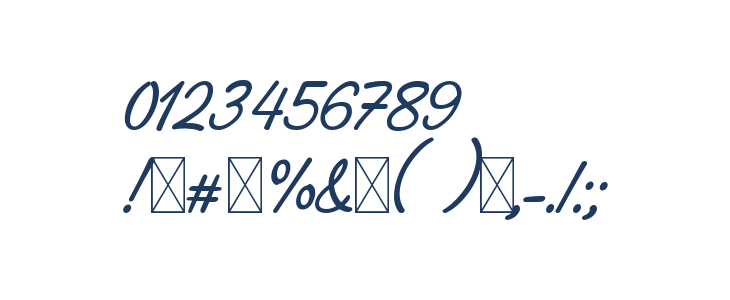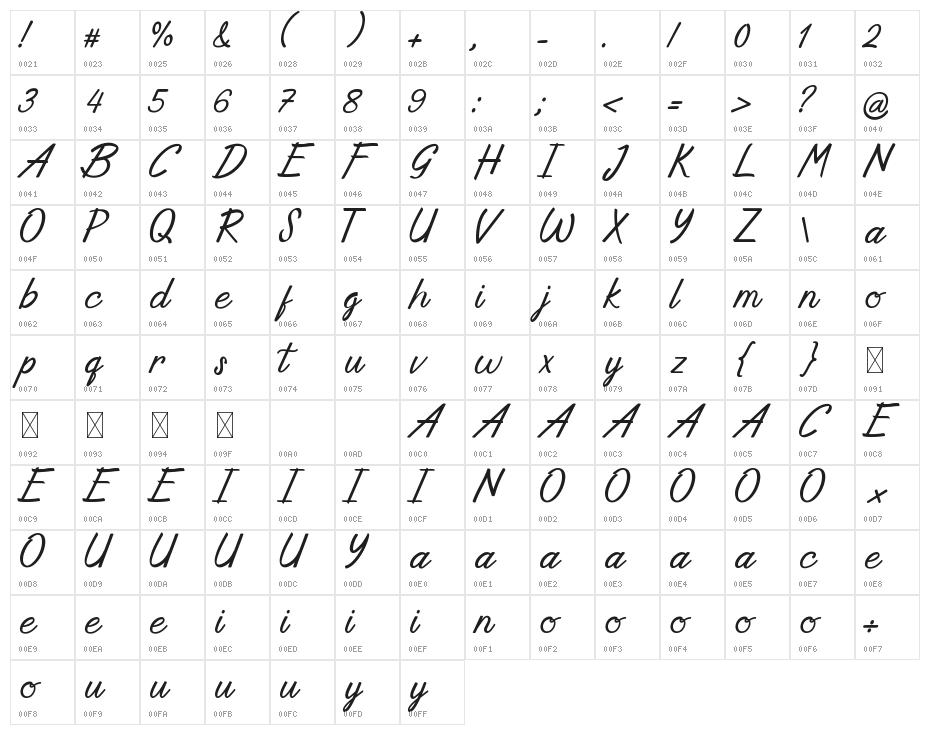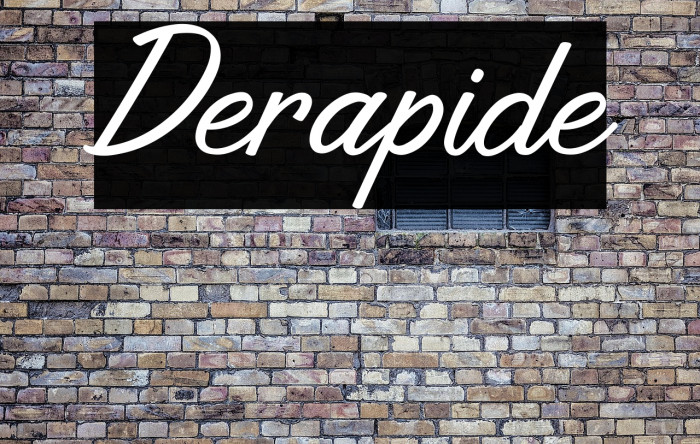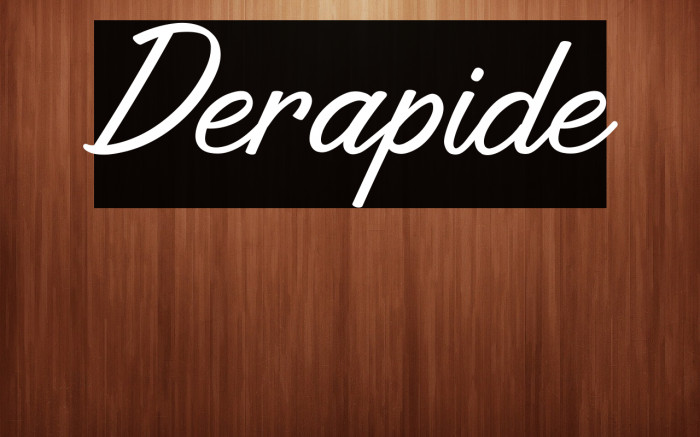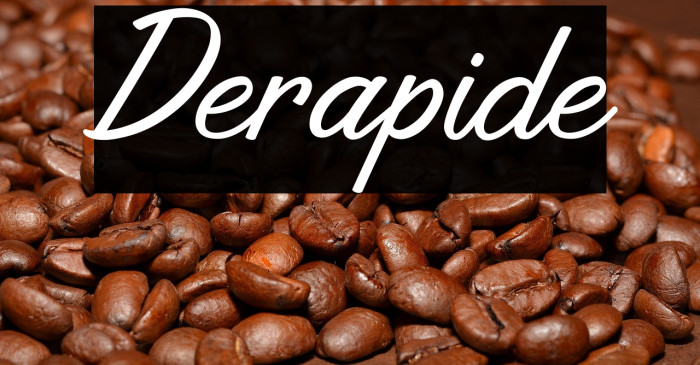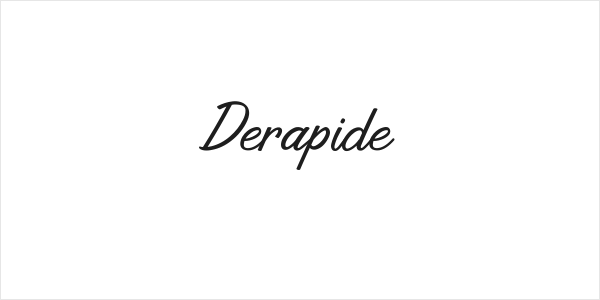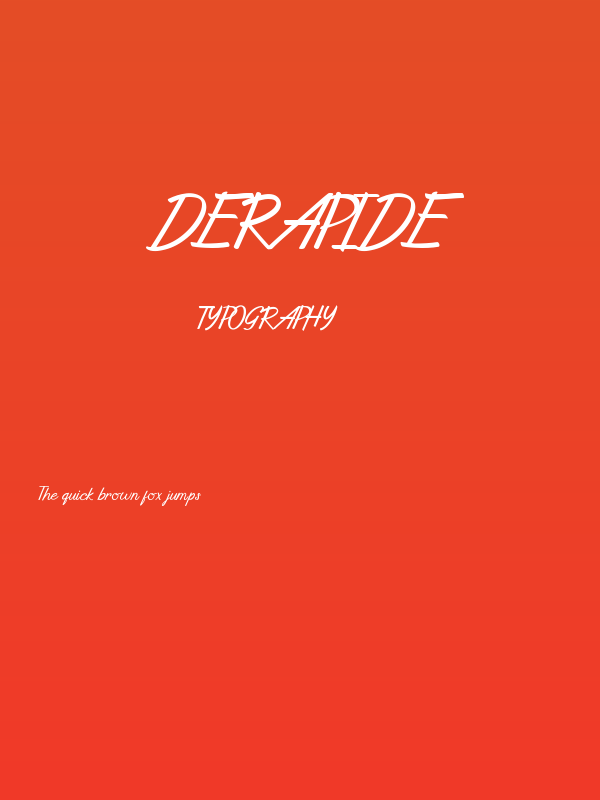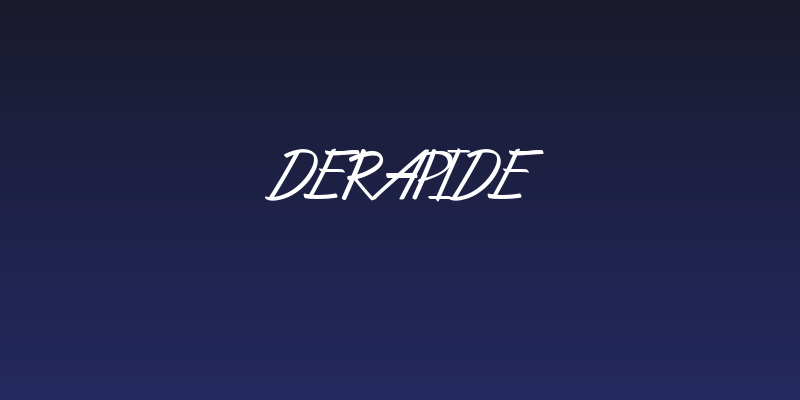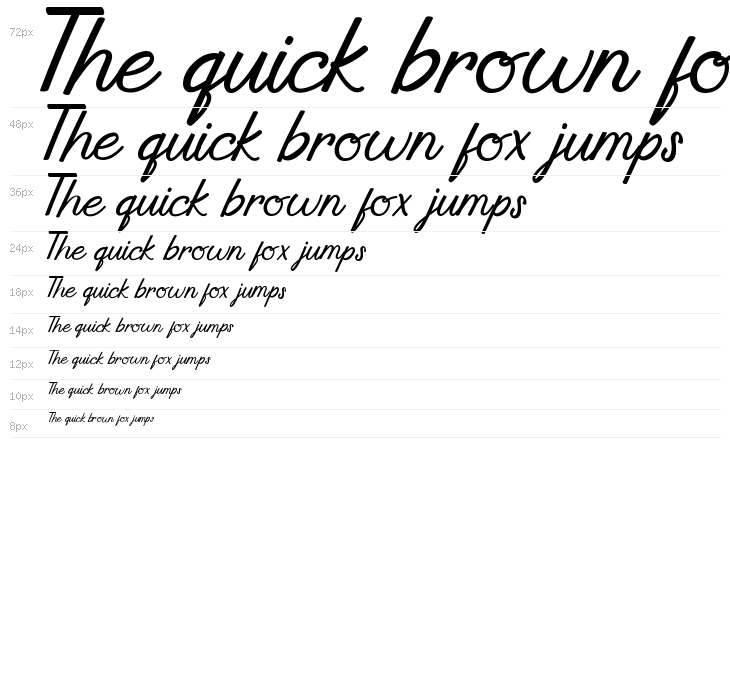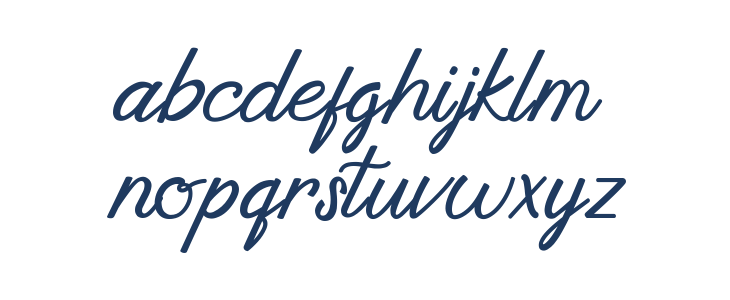
Derapide Font
Derapide Description
This font features a dynamic and fluid script style, characterized by its elegant, flowing strokes that mimic the natural motion of handwriting. The uppercase letters are bold and slightly slanted, giving a sense of movement and energy. The lowercase letters maintain a consistent style, with smooth curves and connected strokes that enhance readability. Numbers and special characters are designed to match the overall aesthetic, ensuring a cohesive look across all text elements. The font's design is both stylish and versatile, making it suitable for a variety of creative applications.
| Use Case | Logos, Headlines, Invitations |
| Proposed Projects | Ideal for wedding invitations, greeting cards, branding projects, and social media graphics. |